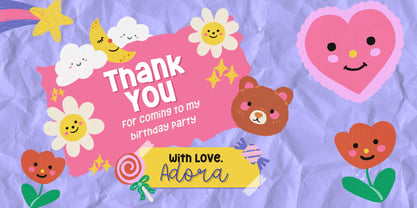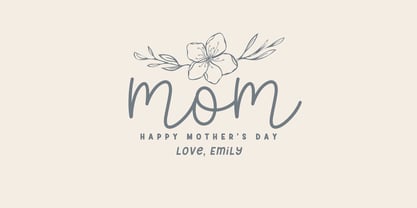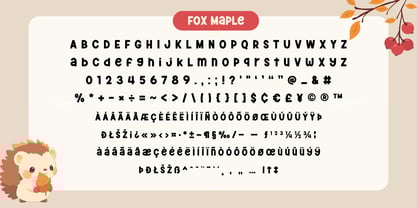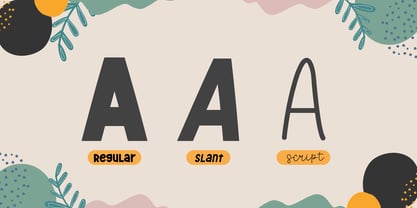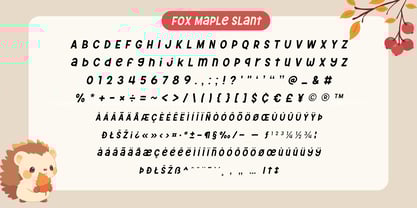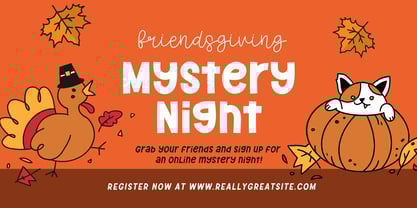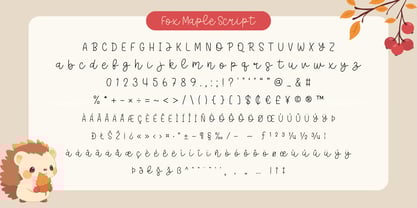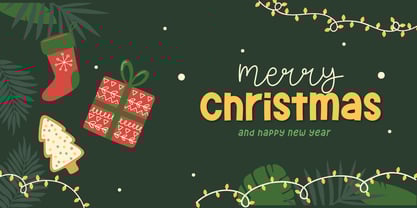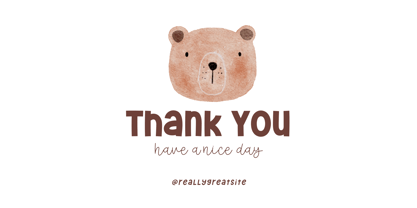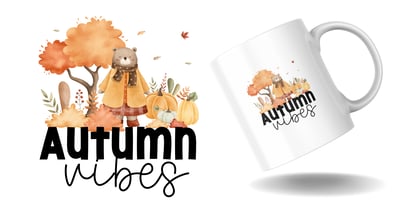
Fox Maple
by Fox7
The Fox Maple Font Family was designed by Rattana Rattanawan and published by Fox7. Fox Maple contains 3 styles and family package options.
Fox Maple is a Trio Font cute and playful handwritten font. Its vibrant and energetic design makes it perfect for creating eye-catching headlines, t-shirt prints, banners, product labels, and much more. With its versatility and bold personality, it brings a fun and captivating touch to any project!